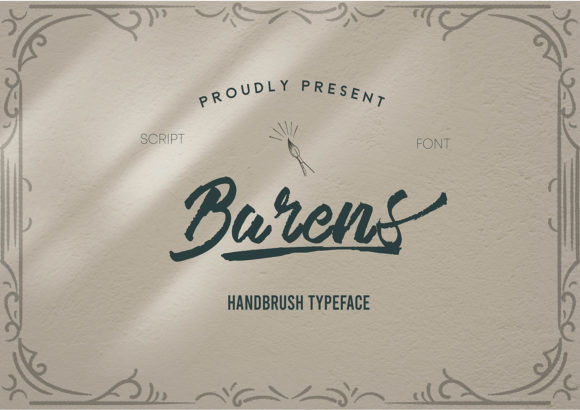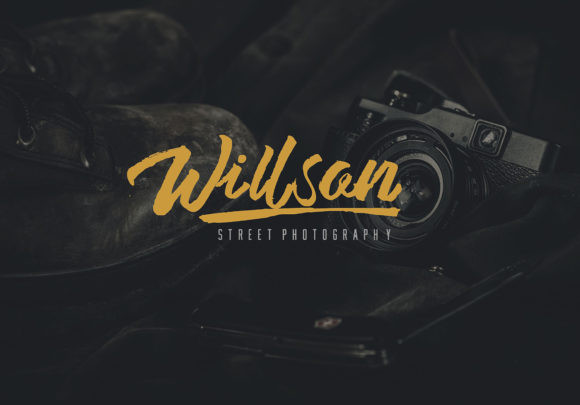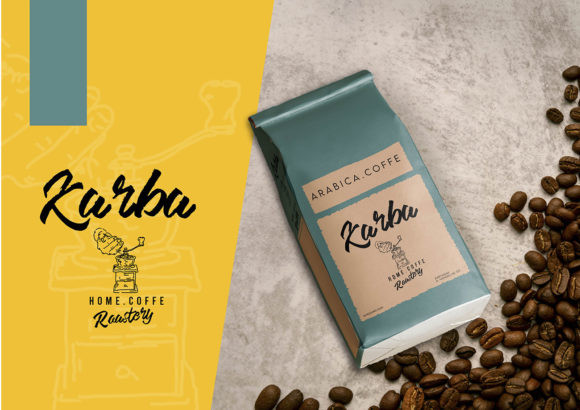
Barens Font
Barens is a casual and modern handwritten font, created by using a brush pen. Clean and a little bit quirky, this font is the perfect fit for all of your logos, branding, social media, and crafty DIY projects.